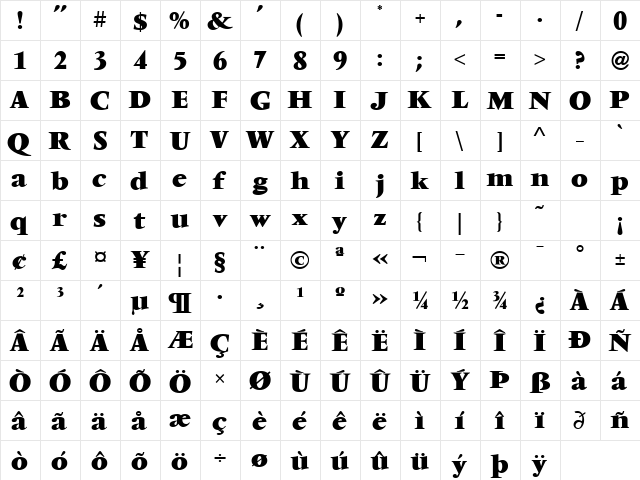
Vendome ICG Black Regular Font Preview
Vendome ICG Black Regular
Vendome ICG Black Regular Font Details
Design Context for Vendome ICG Black Typeface
Vendome ICG Black offers clean, dependable letterforms without strong stylistic allegiance, making it a practical choice for designers who need flexibility.